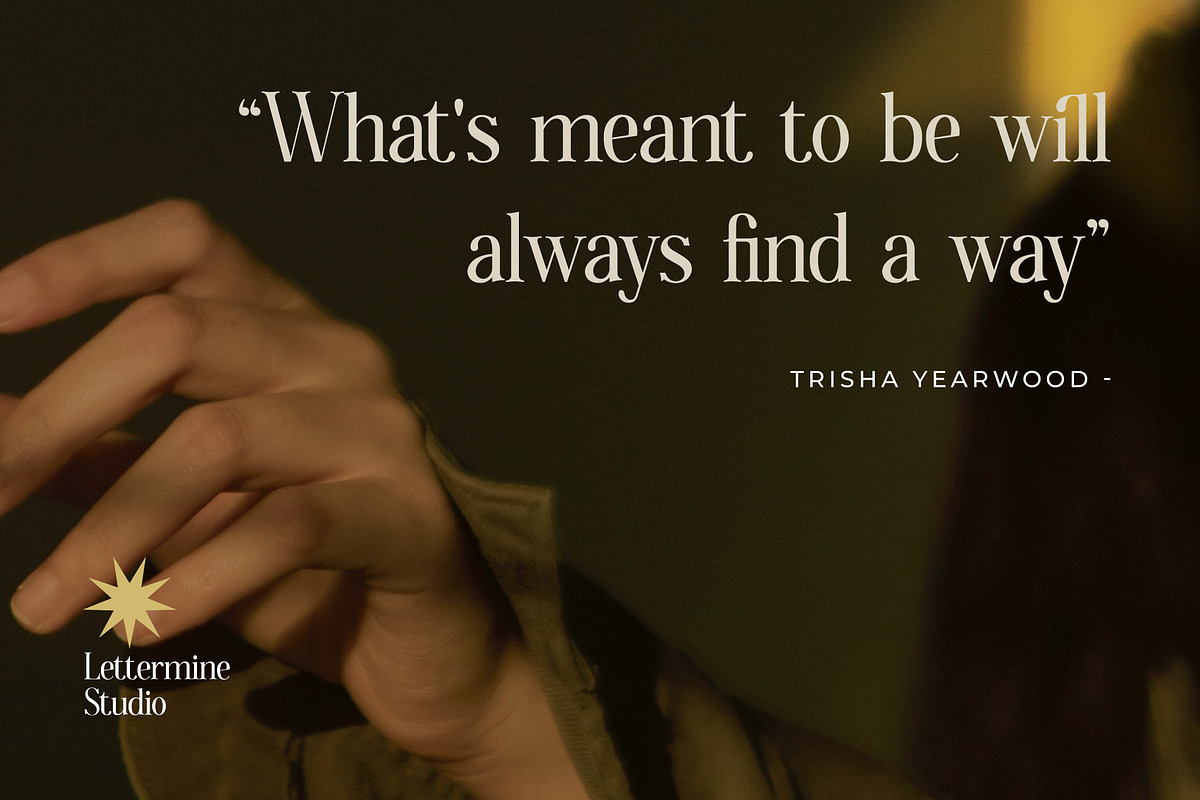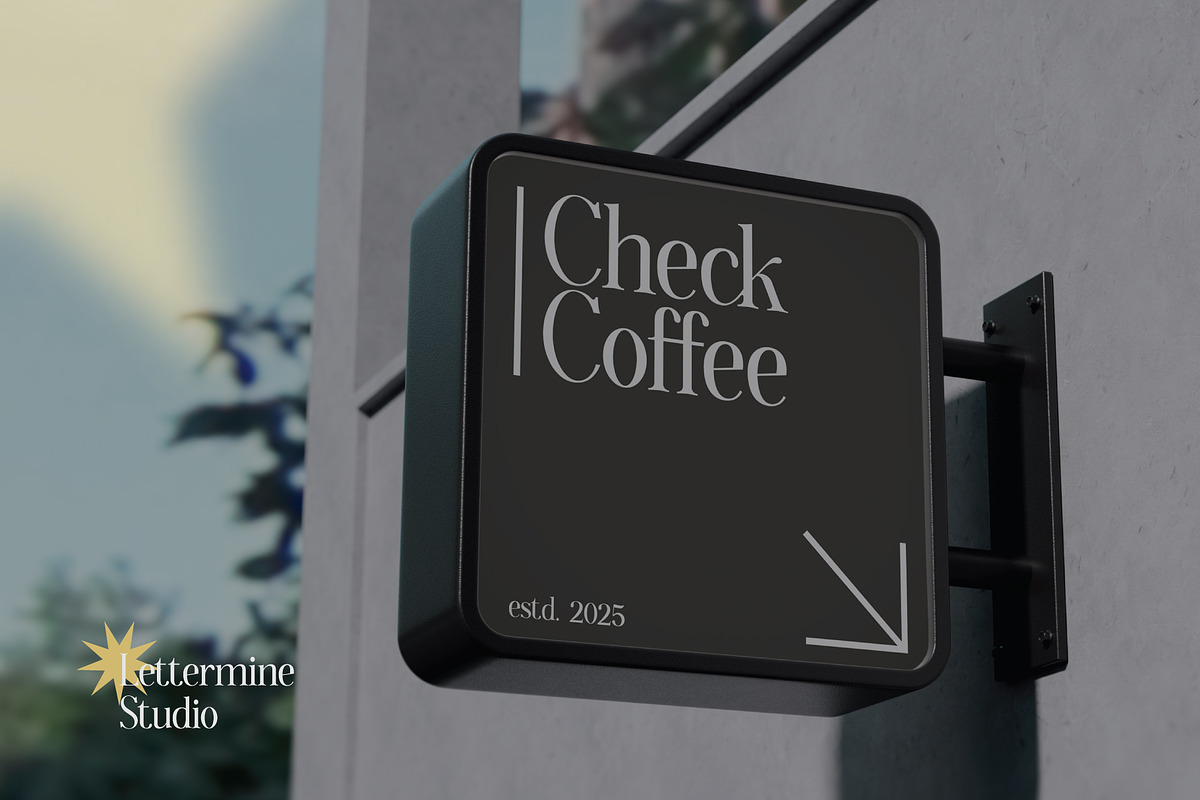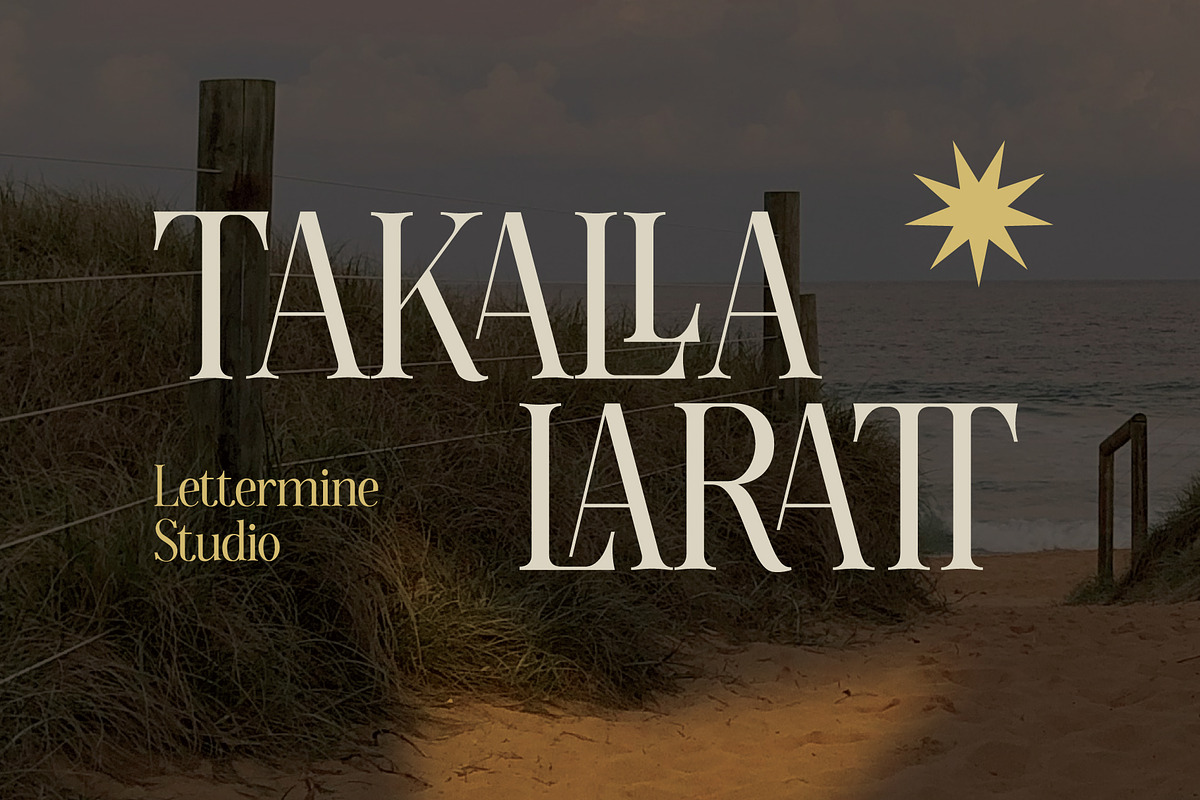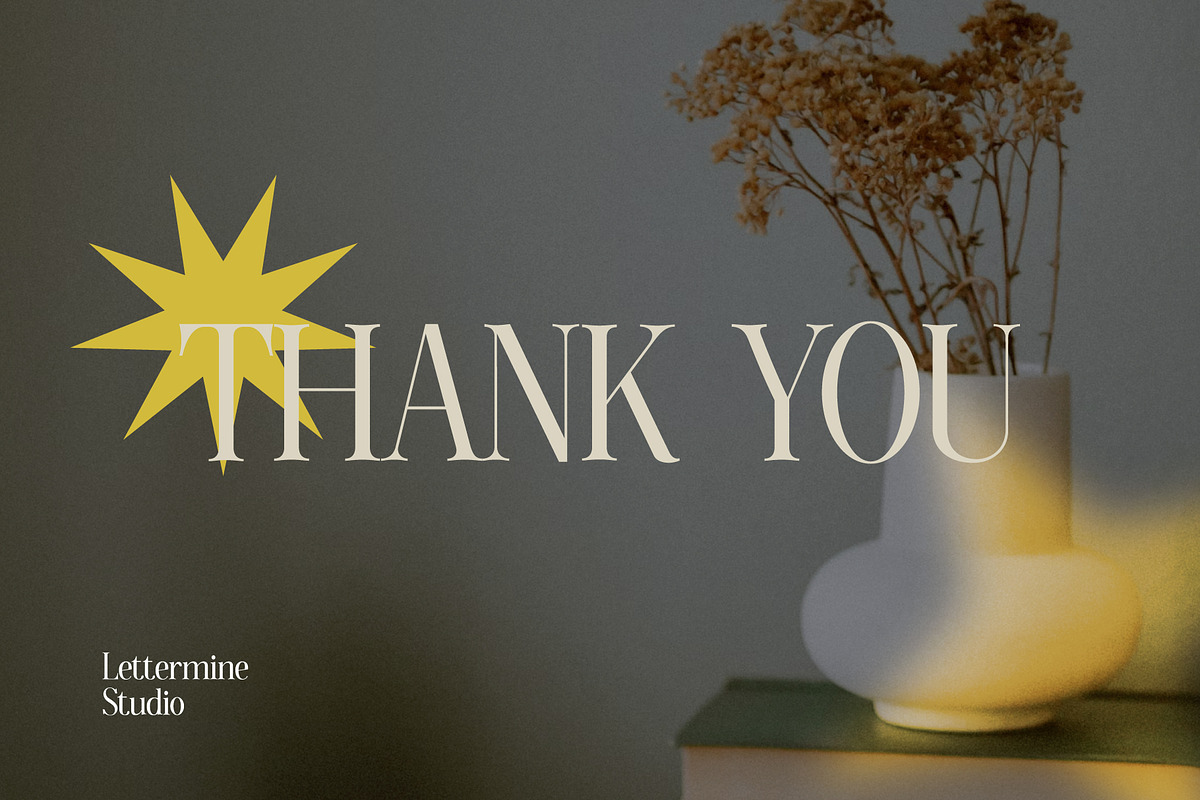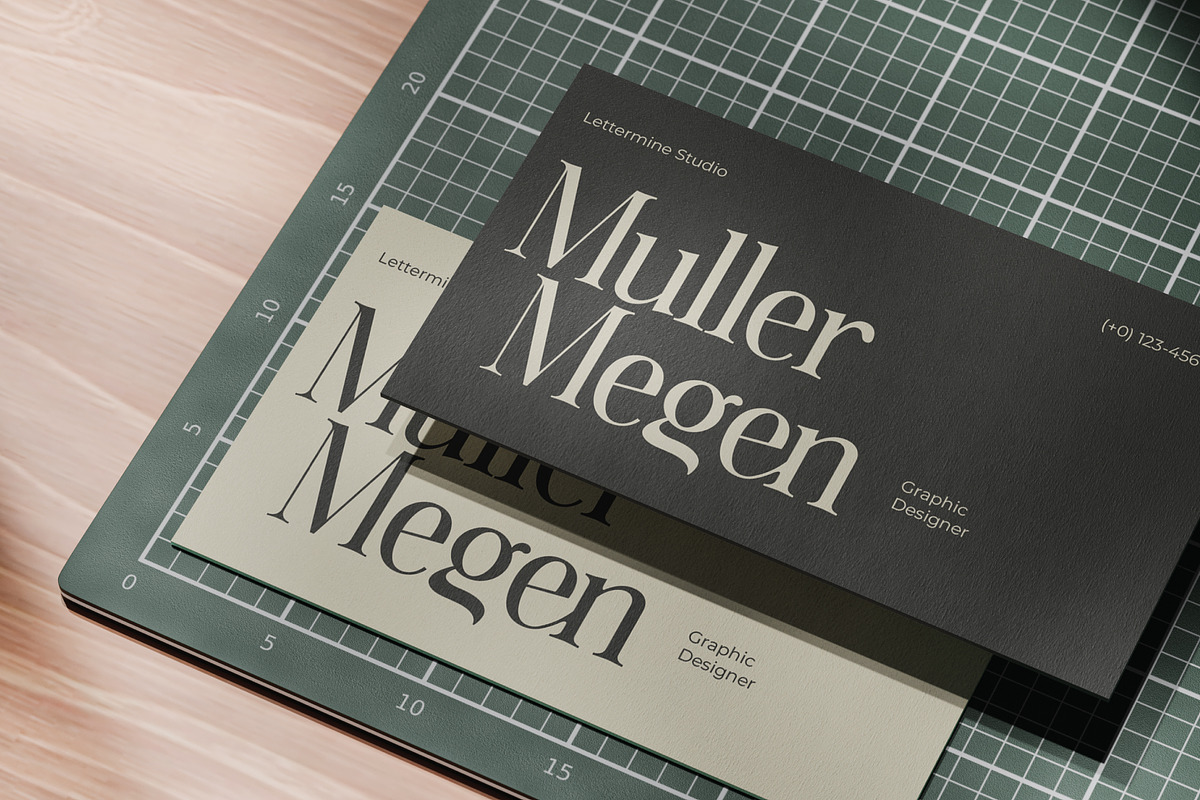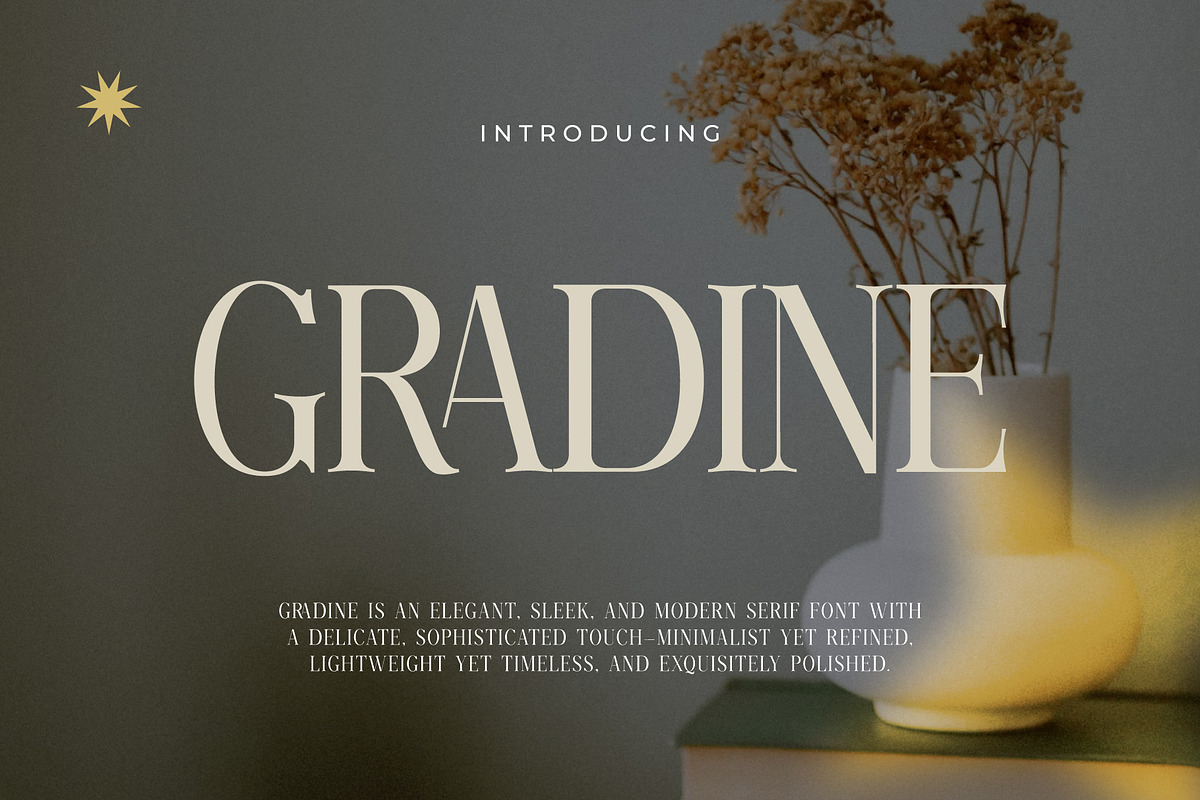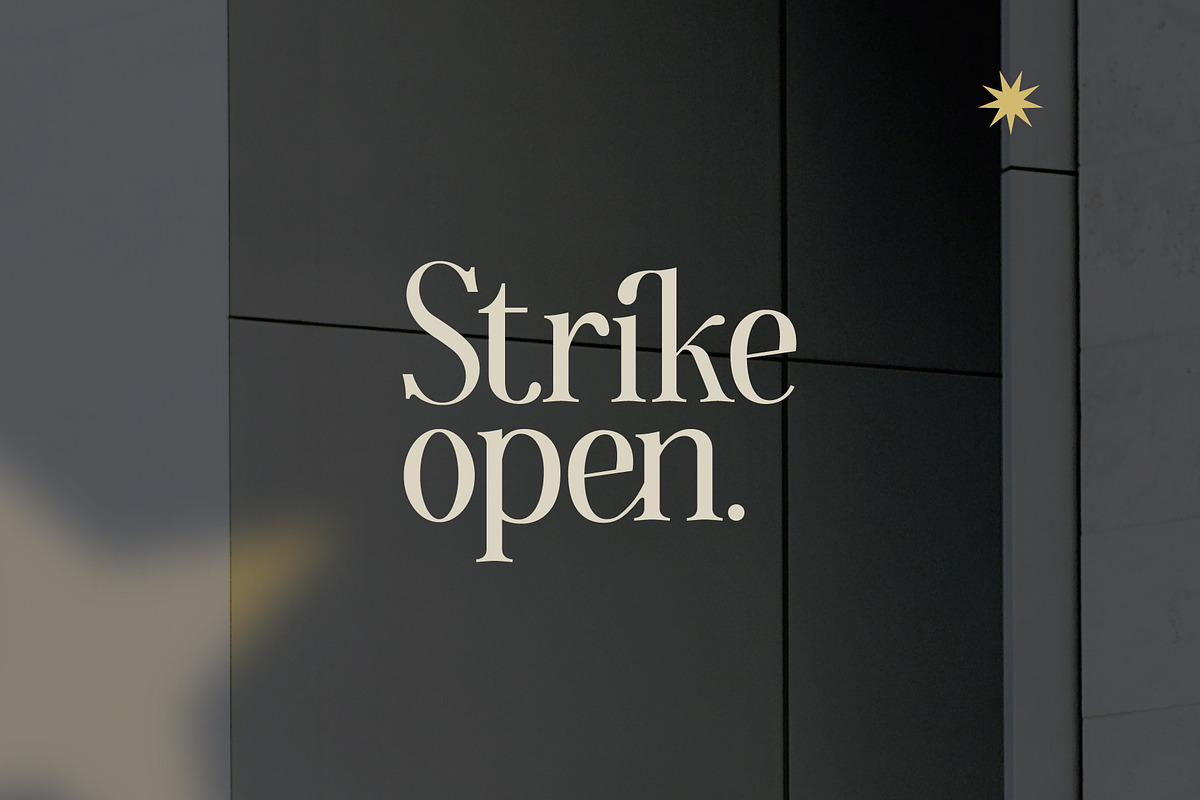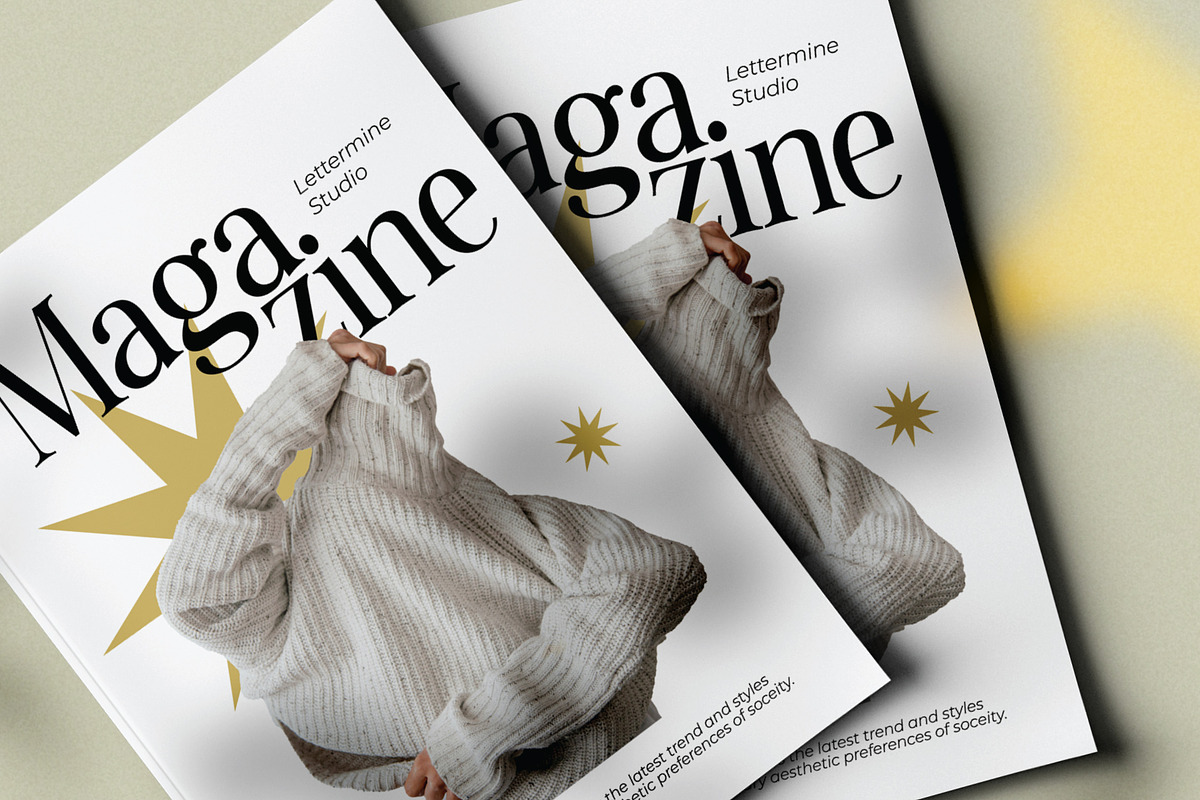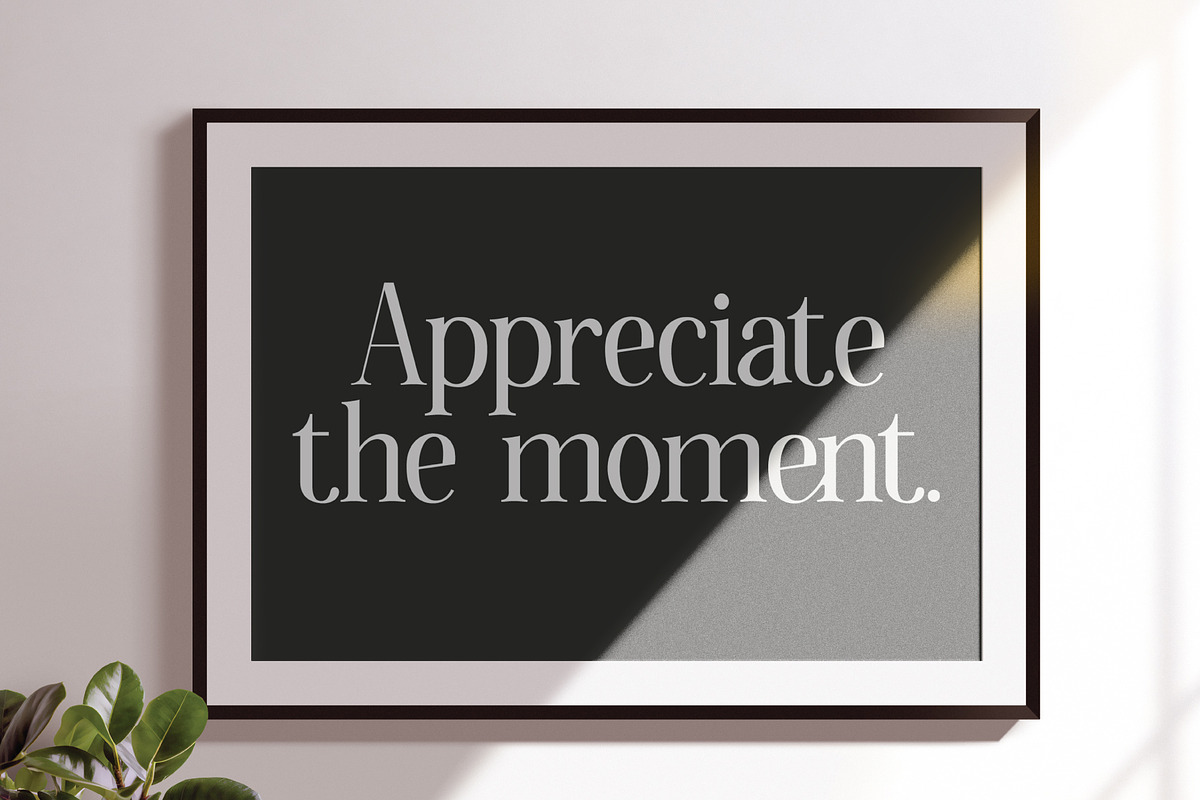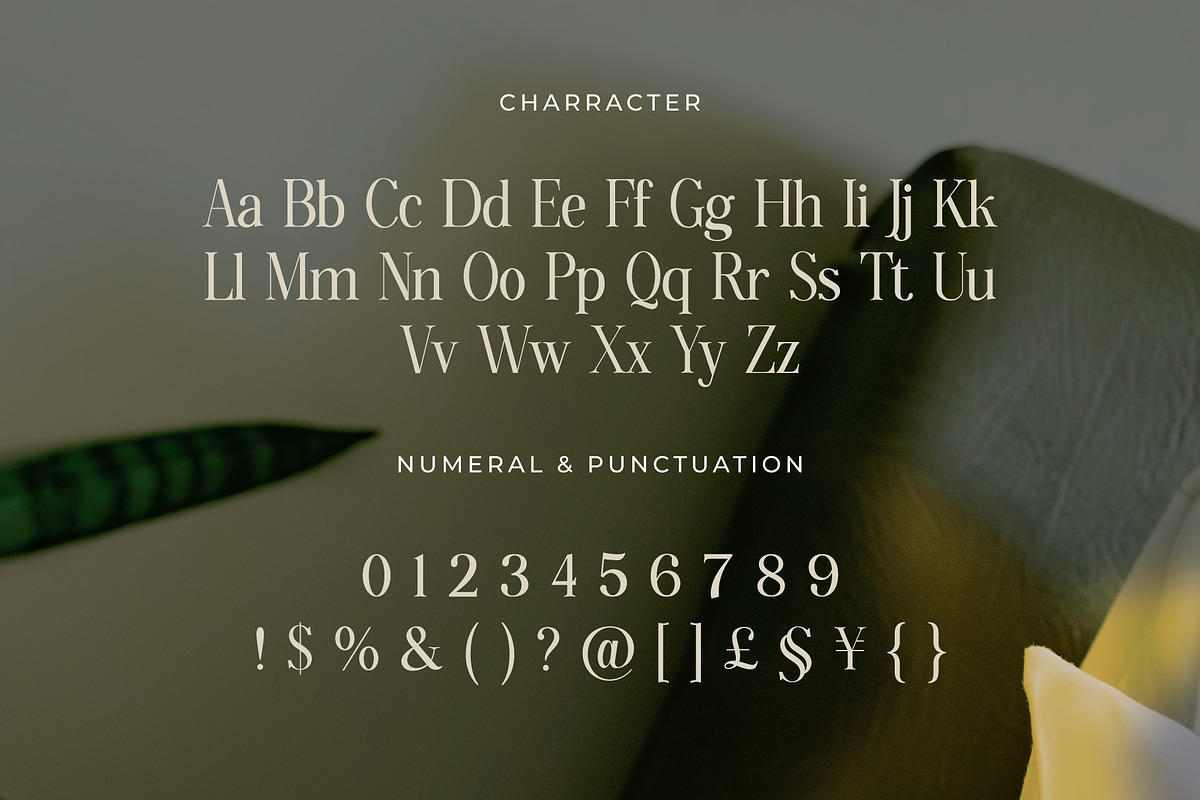
Gradine – Luxury Serif
Gradine is a luxury serif font that embodies timeless elegance and refined sophistication. Designed with high contrast strokes and graceful curves, each character exudes a sense of class and exclusivity. Perfect for upscale branding, editorial layouts, invitations, and high-end packaging, Gradine adds a touch of luxury to every design.